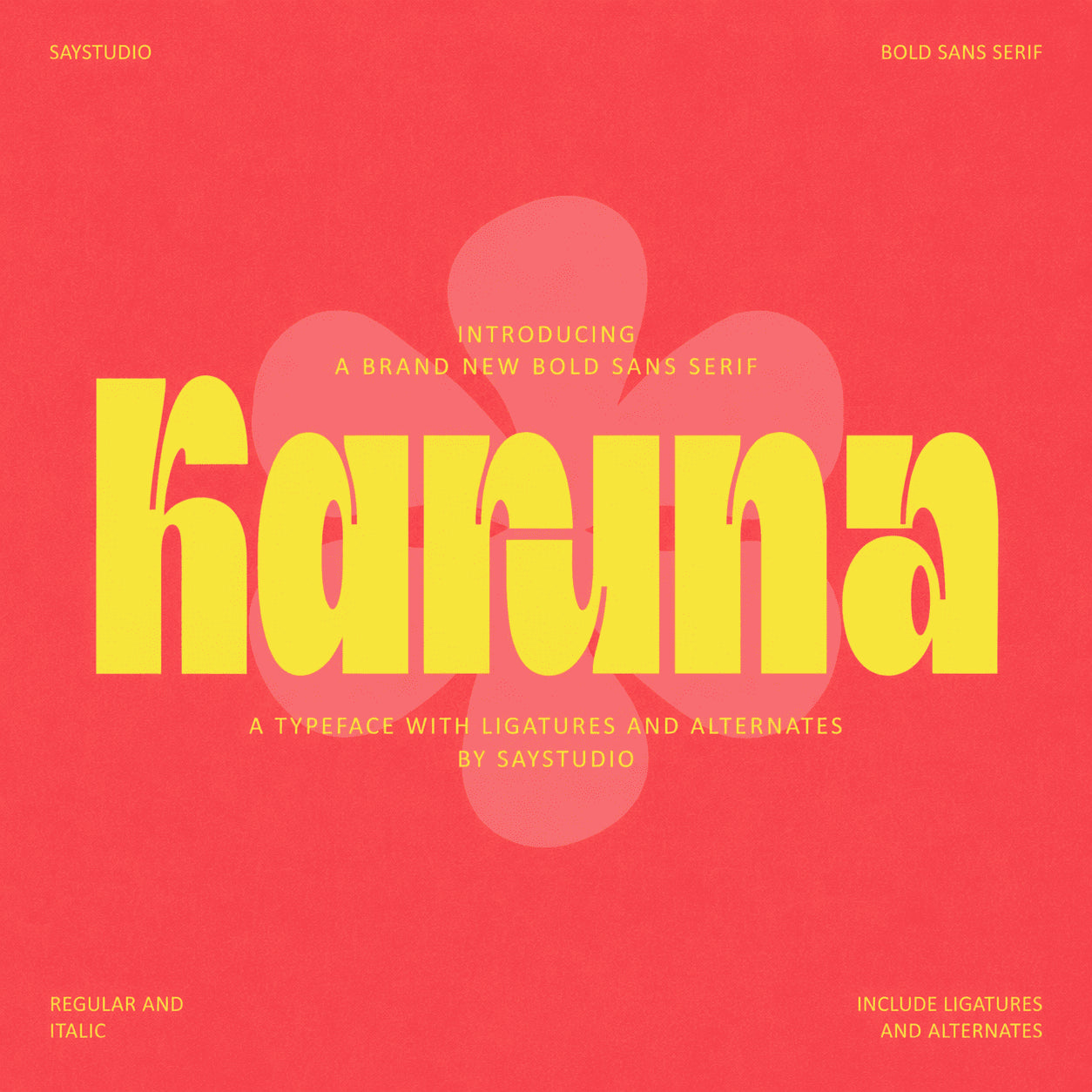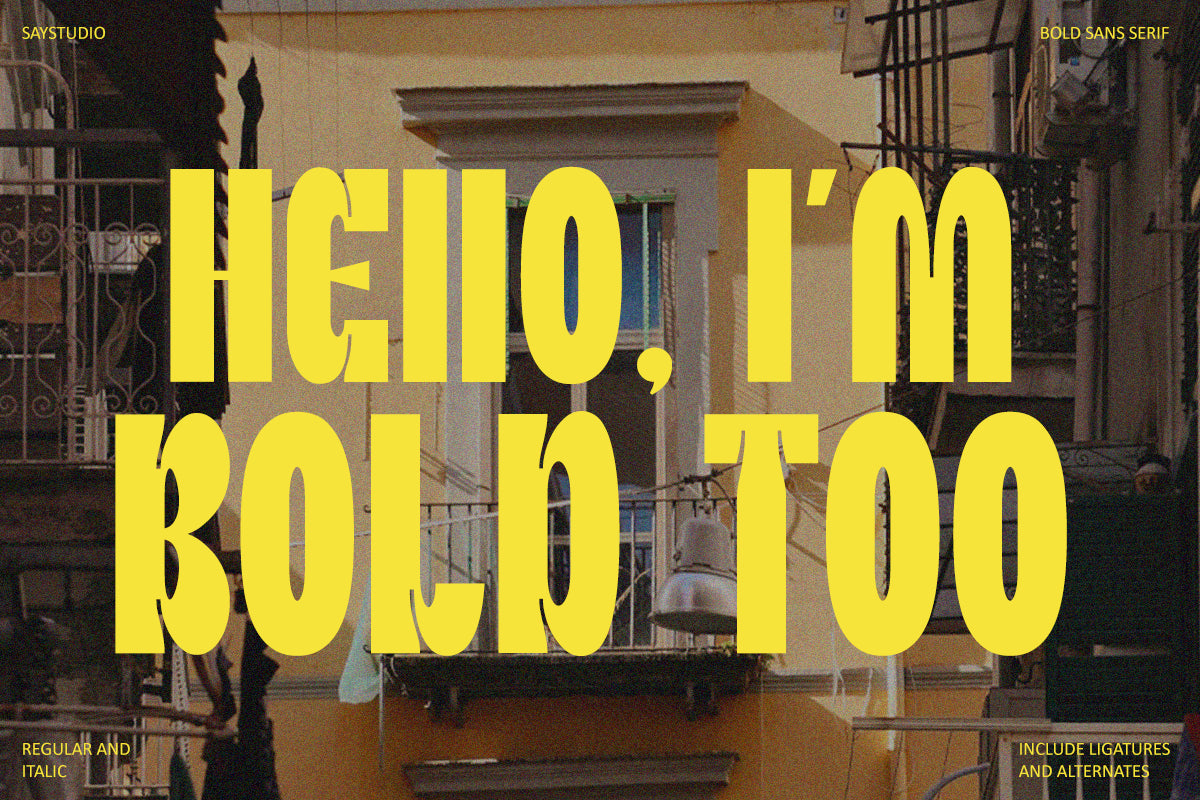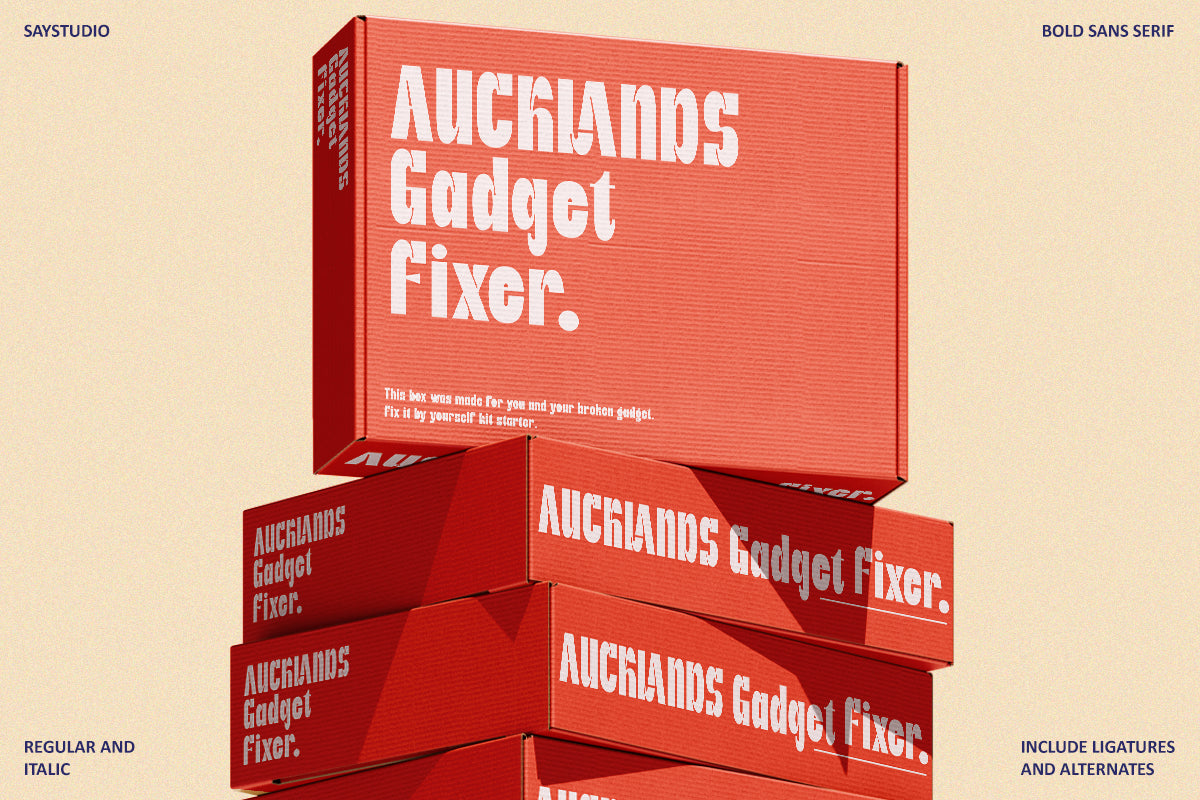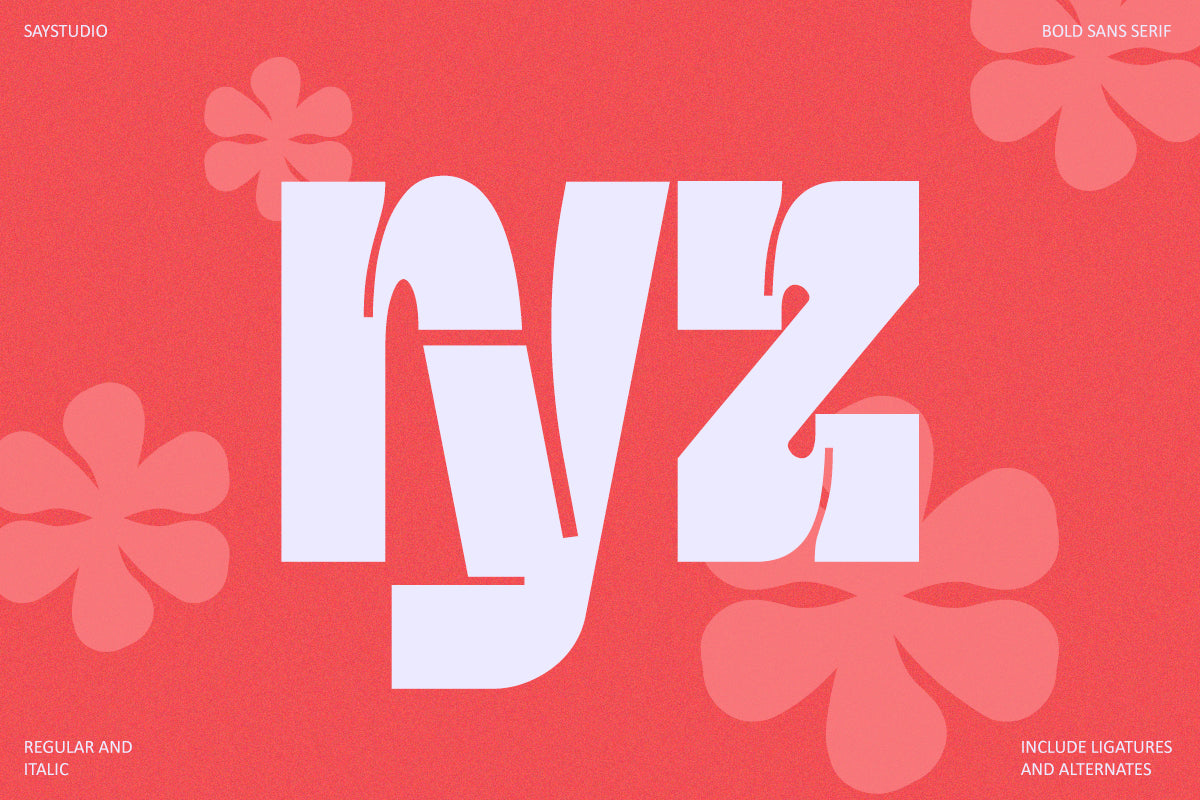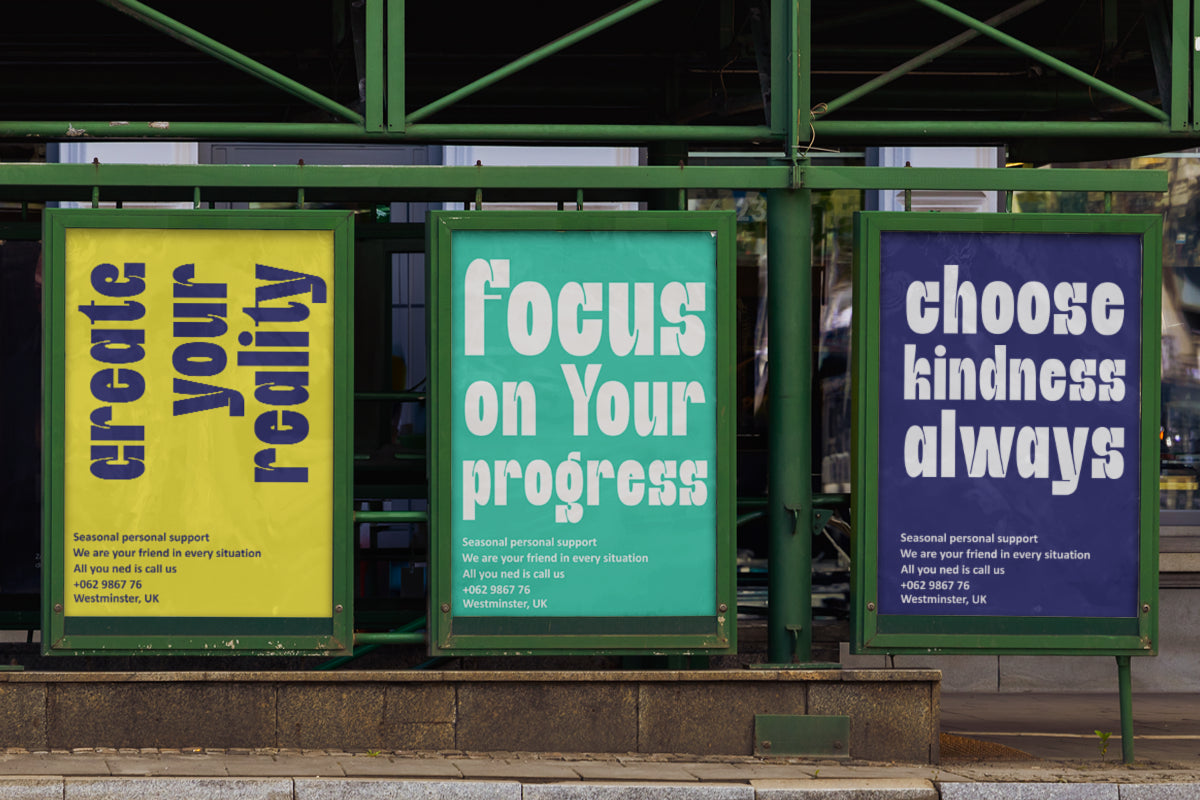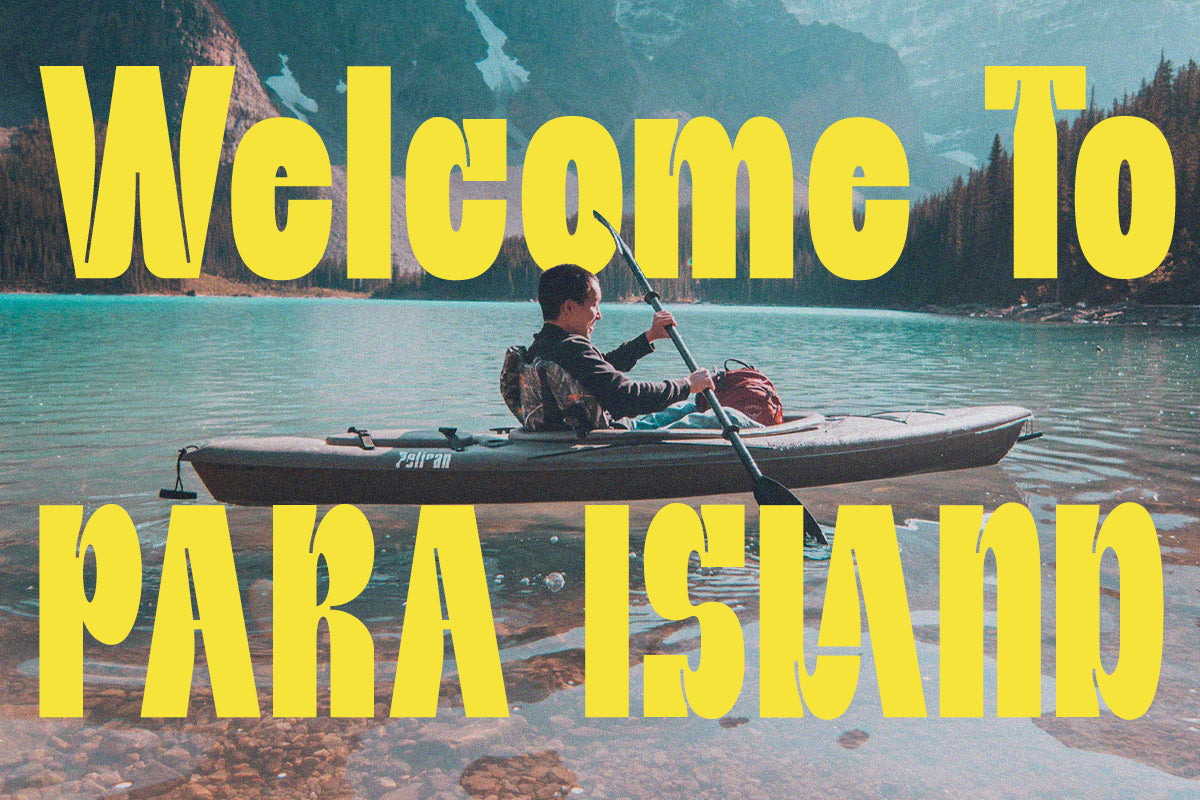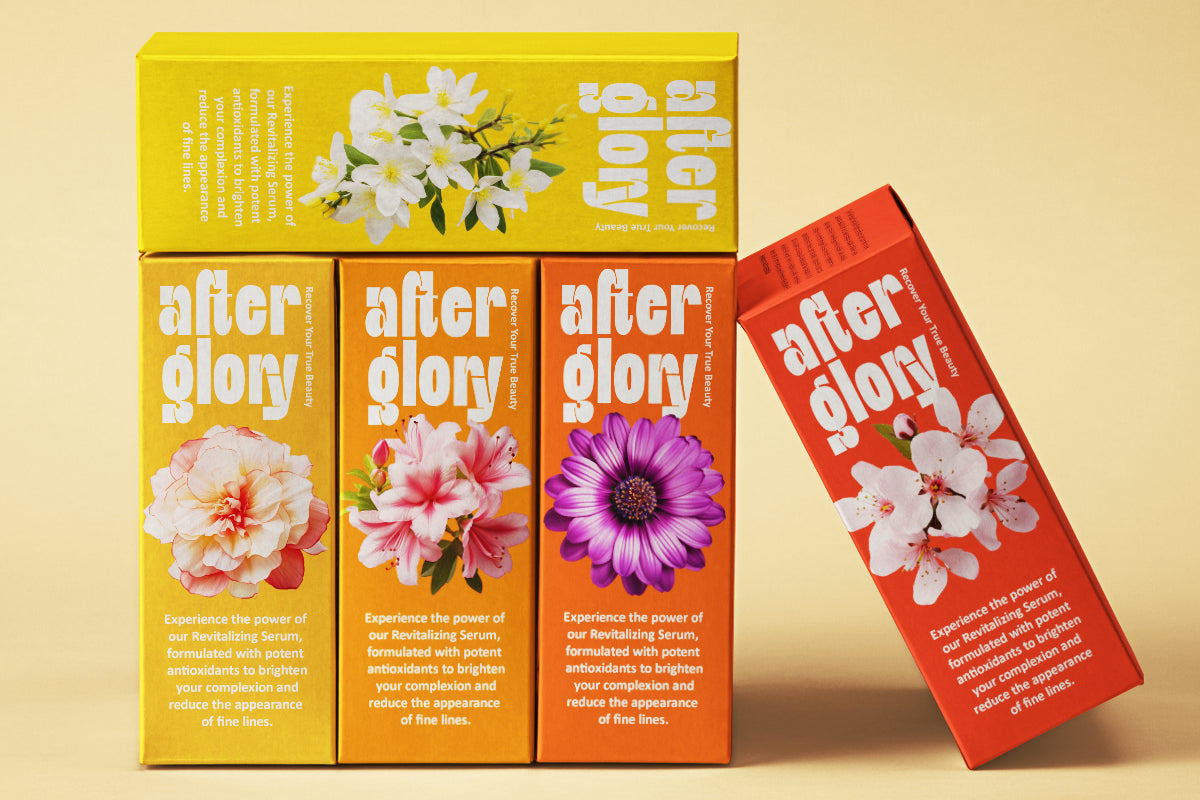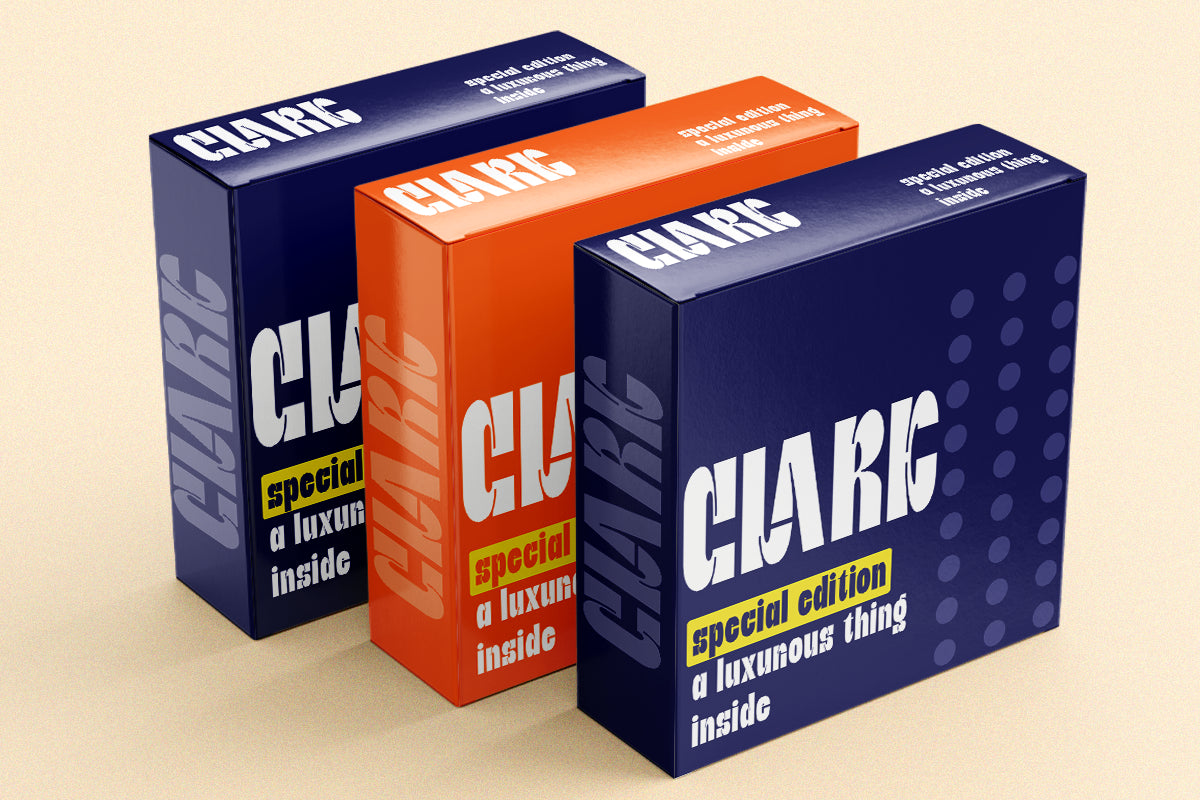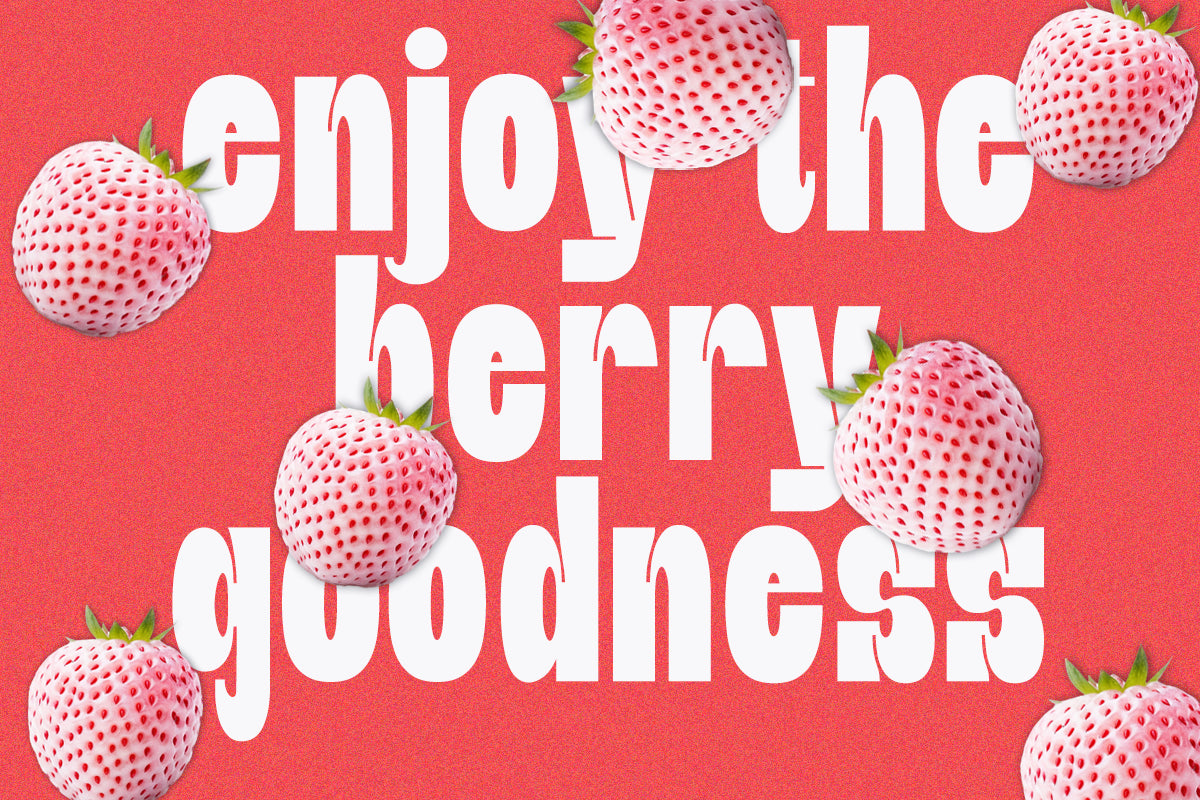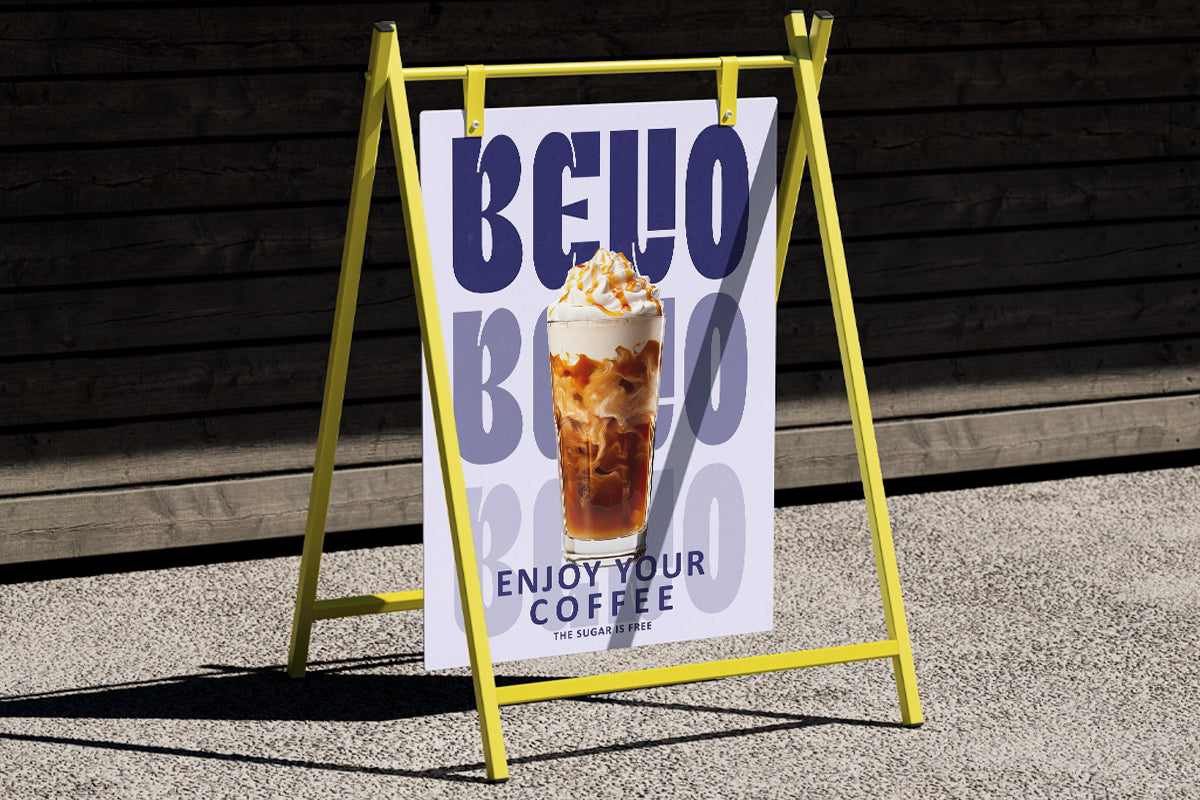
Bold Condensed Inktrap Sans Font - Karuna
Karuna is a condensed ink-trap sans serif display font that combines a strong, narrow structure with distinctive details and expressive character. Its condensed proportions create an impactful presence while maintaining excellent readability across bold headlines and large-scale typography.
Designed with pronounced ink-trap details, Karuna adds a subtle technical and unconventional touch to its otherwise clean sans serif construction. The sharp cuts, compact letterforms, and distinctive terminals give the typeface a contemporary yet nostalgic personality, making it stand out in both minimal and expressive compositions.
Karuna is ideal for posters, branding, packaging, editorial layouts, headlines, advertising, apparel, and other display-focused projects. Its condensed silhouette works especially well when space is limited, while its unique ink-trap characteristics bring extra personality and visual rhythm to every word.